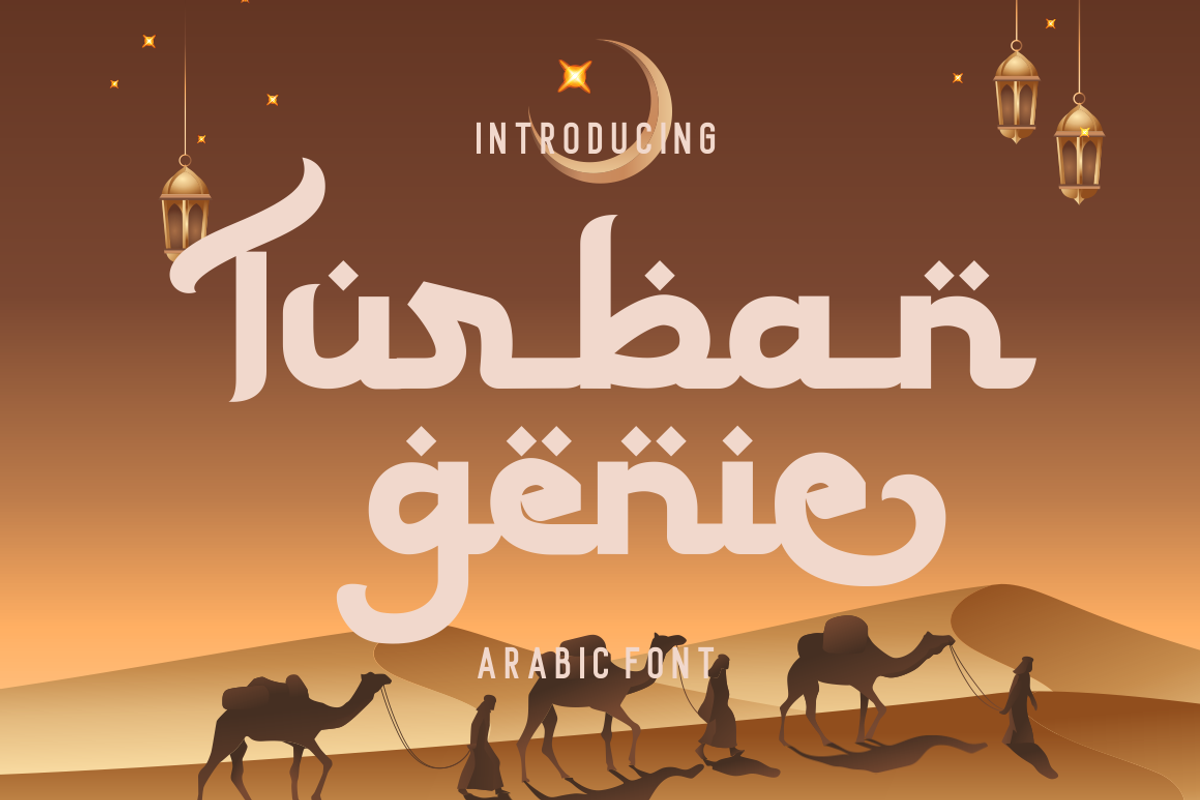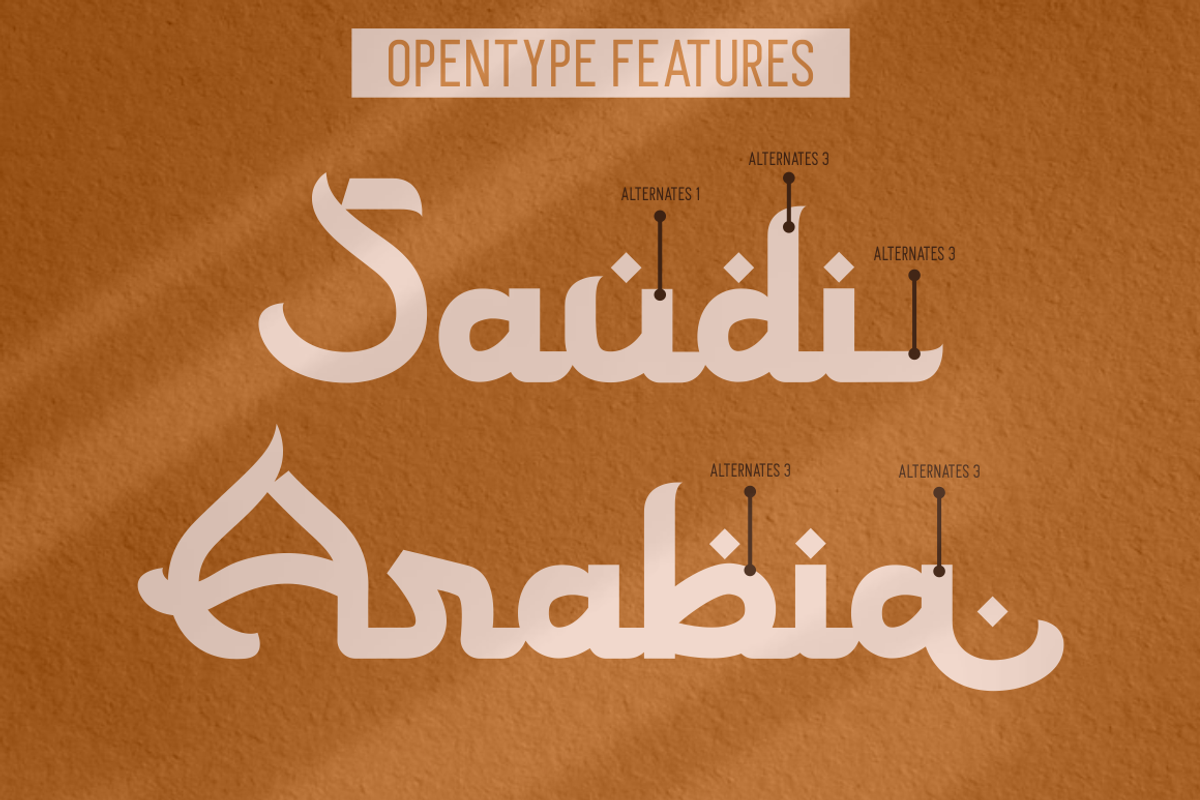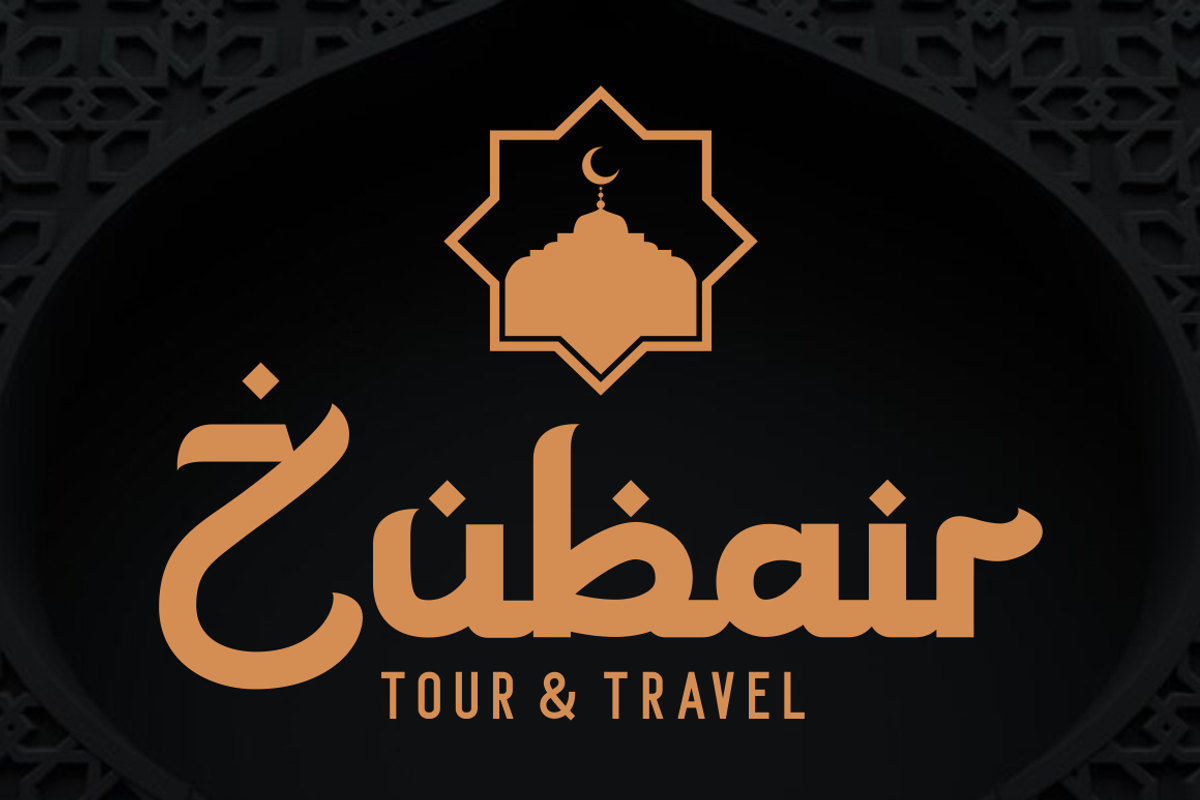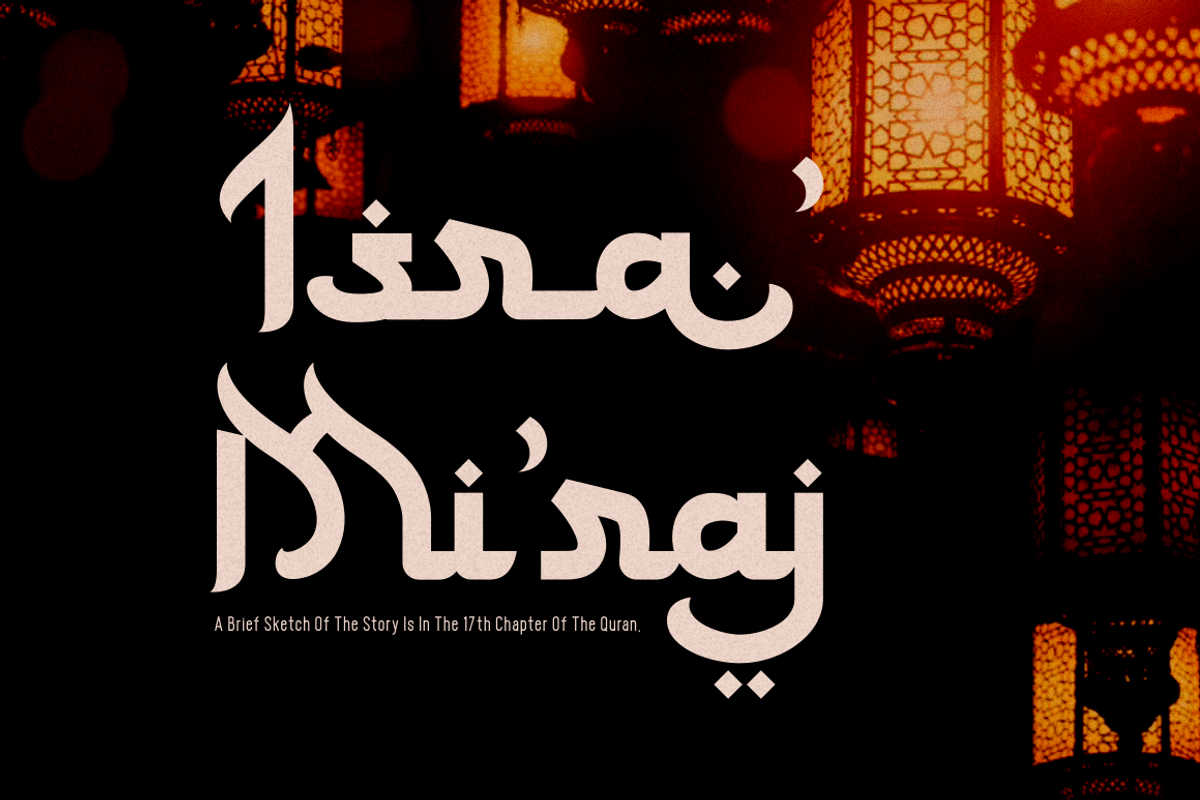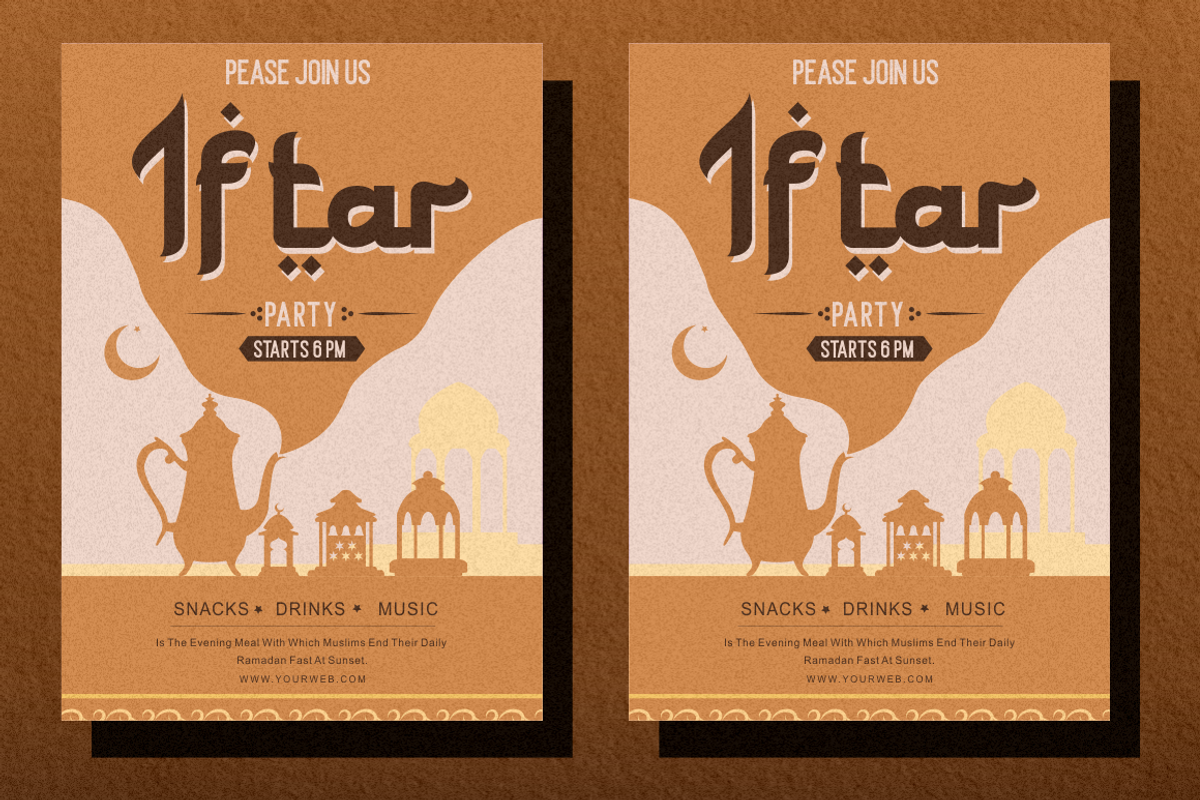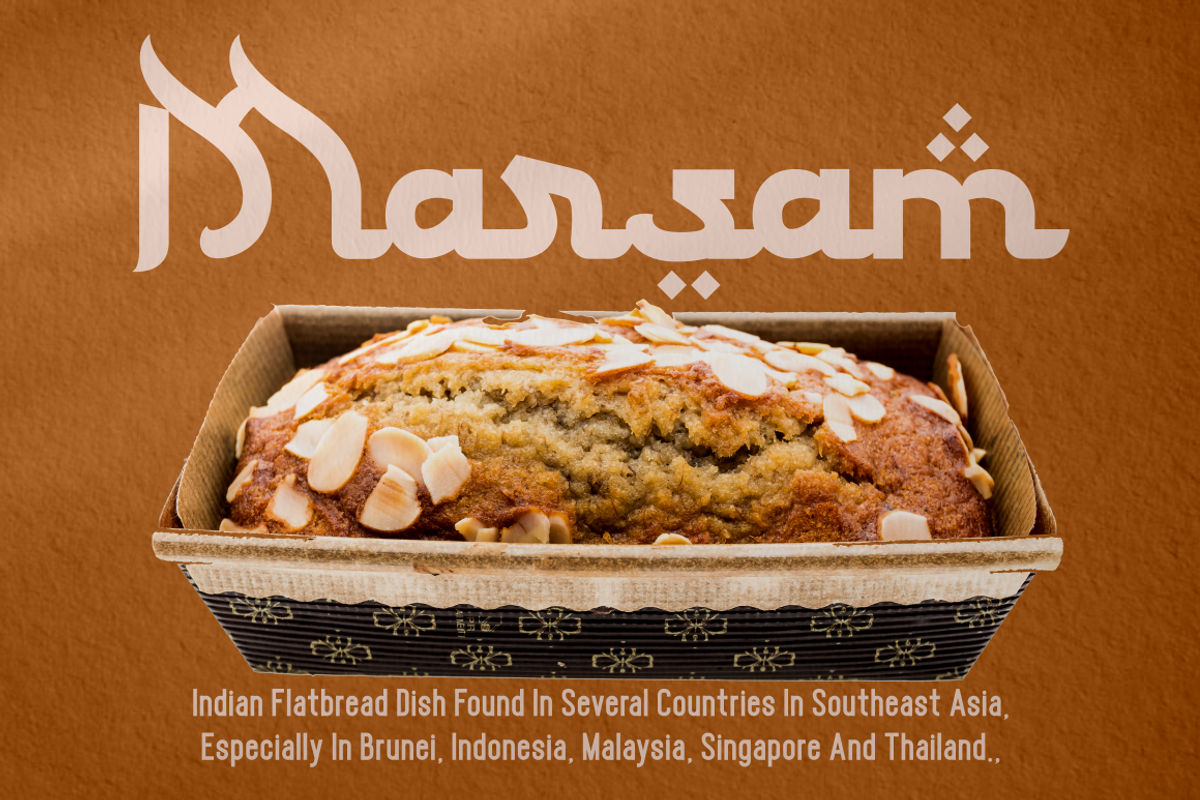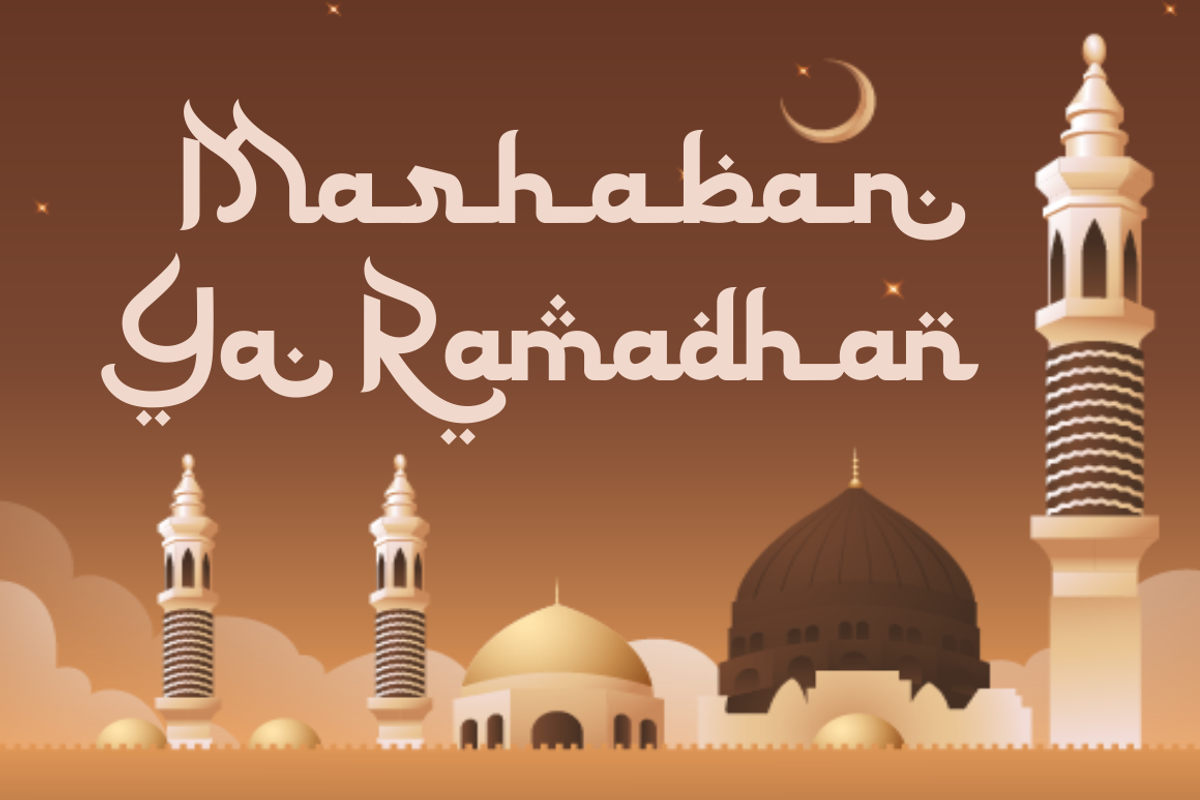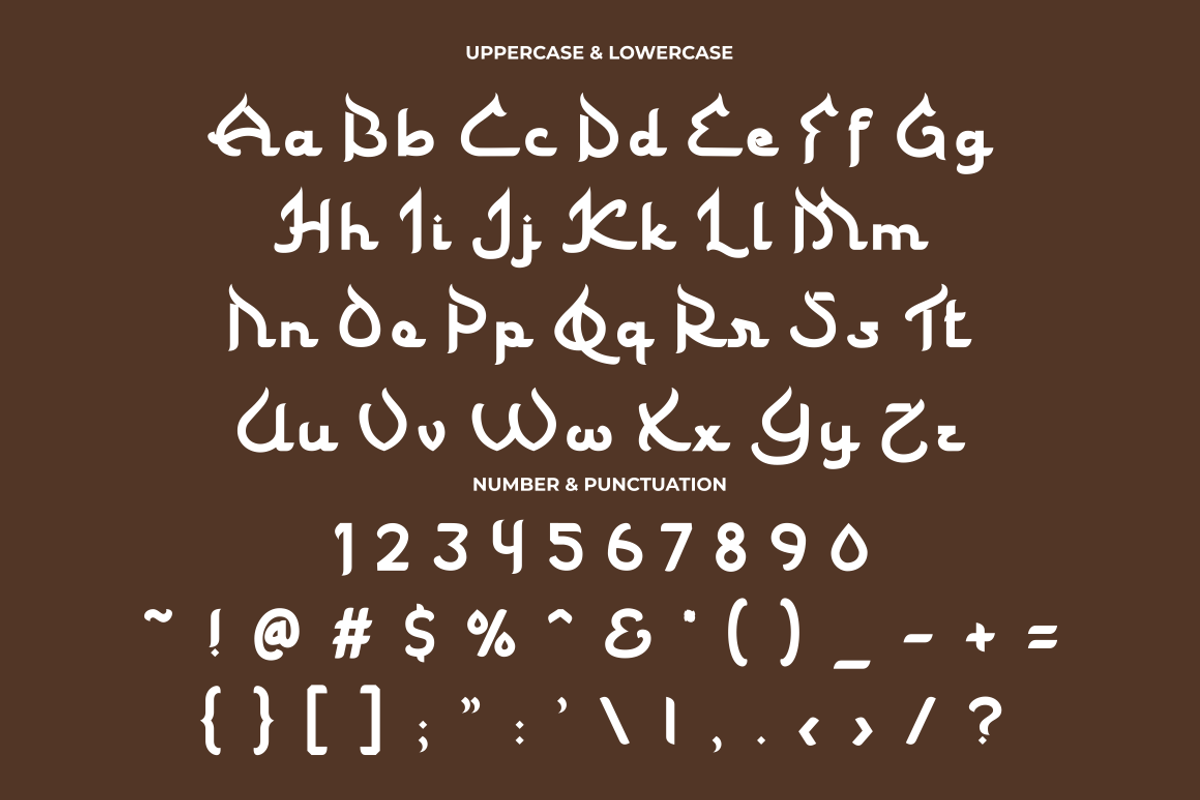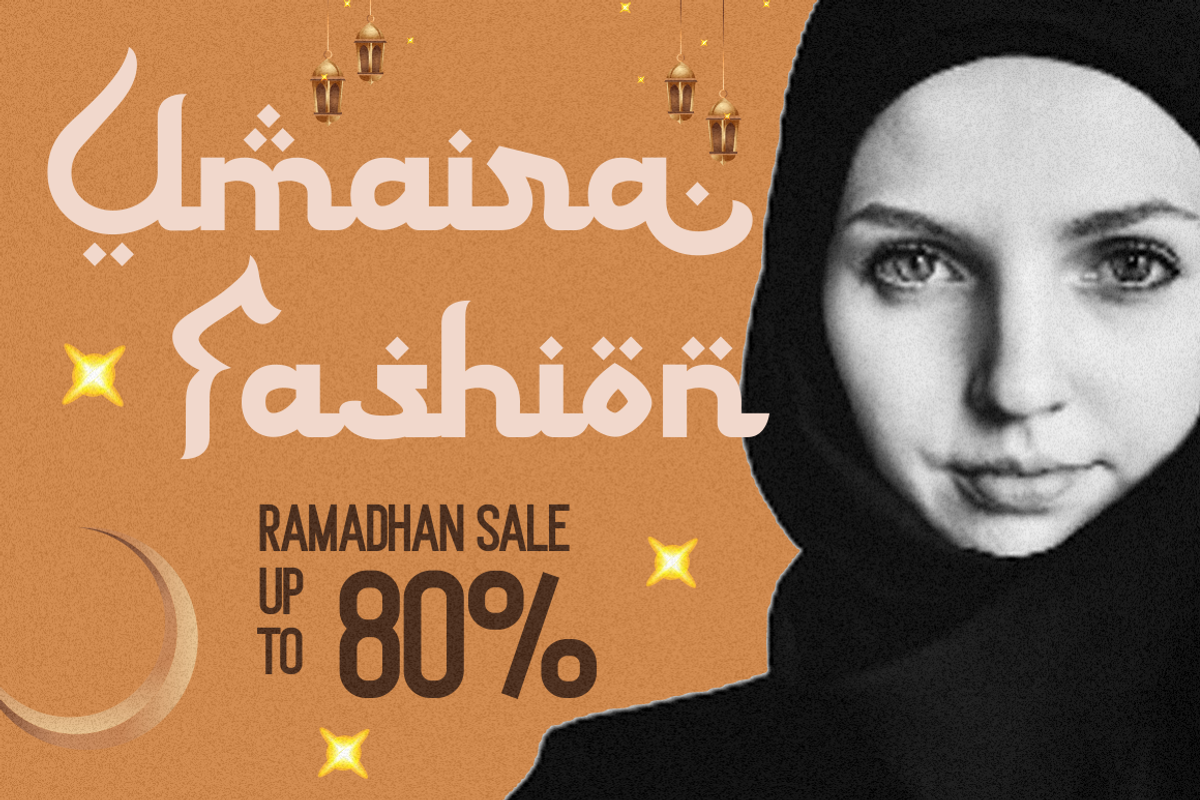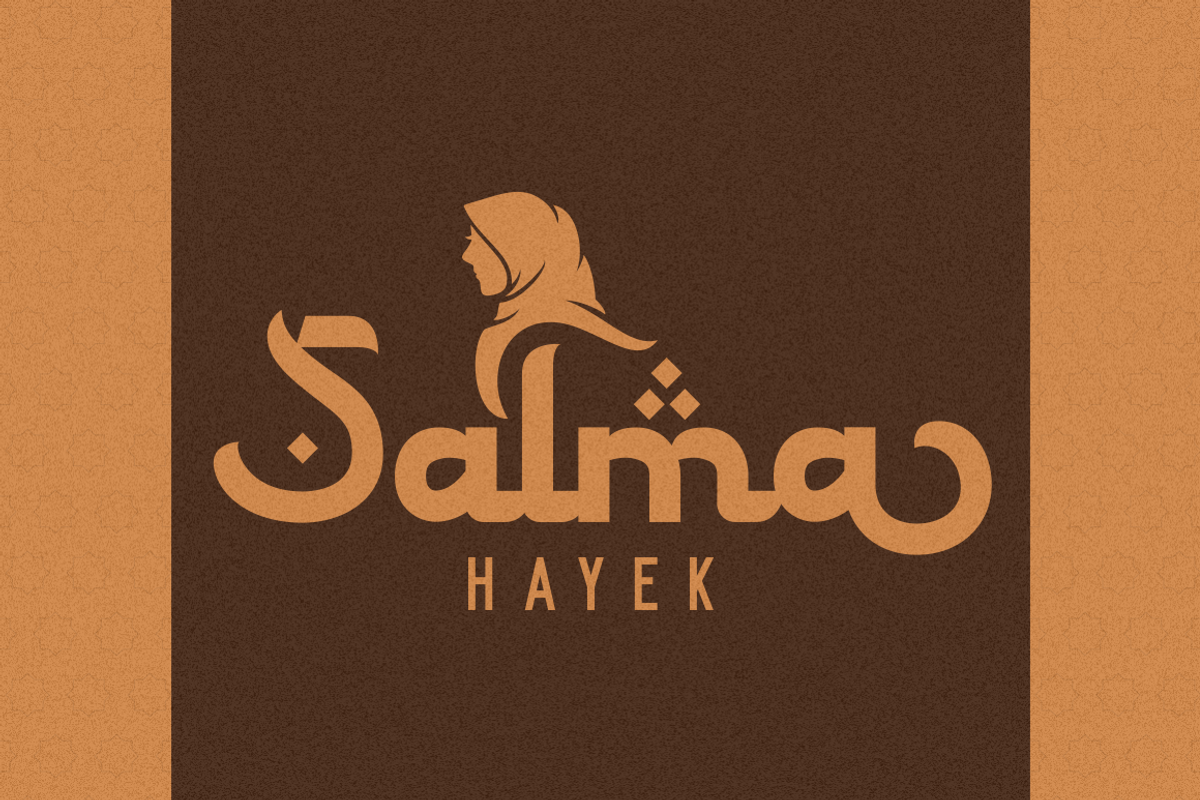
Turban Genie - Arabic Font
Step into the world of cultural sophistication with Turban Genie - Arabic Font. This meticulously crafted digital typeface embodies the elegance of Arabic calligraphy, adorning your designs with intricate details and strategically placed dots on select characters, reminiscent of traditional Arabic writing. With its authentic Arabic style, Turban Genie seamlessly integrates into your creative projects, adding a touch of heritage to your logos, branding, posters, products, promotional materials, titles, greeting cards, and invitations. Elevate your designs with the timeless charm of this versatile font.
Turban Genie - Arabic Font introduces a captivating blend of heritage and design possibilities. Its resemblance to Arabic script, complete with delicate dots on characters, makes it an impeccable choice for those seeking to infuse cultural finesse into their creative ventures. Whether you're shaping logos, designing branding materials, crafting posters, or curating invitations, Turban Genie effortlessly captures the essence of Arabic calligraphy, adding an aura of elegance and tradition. Elevate your designs with the artistic allure of Turban Genie.